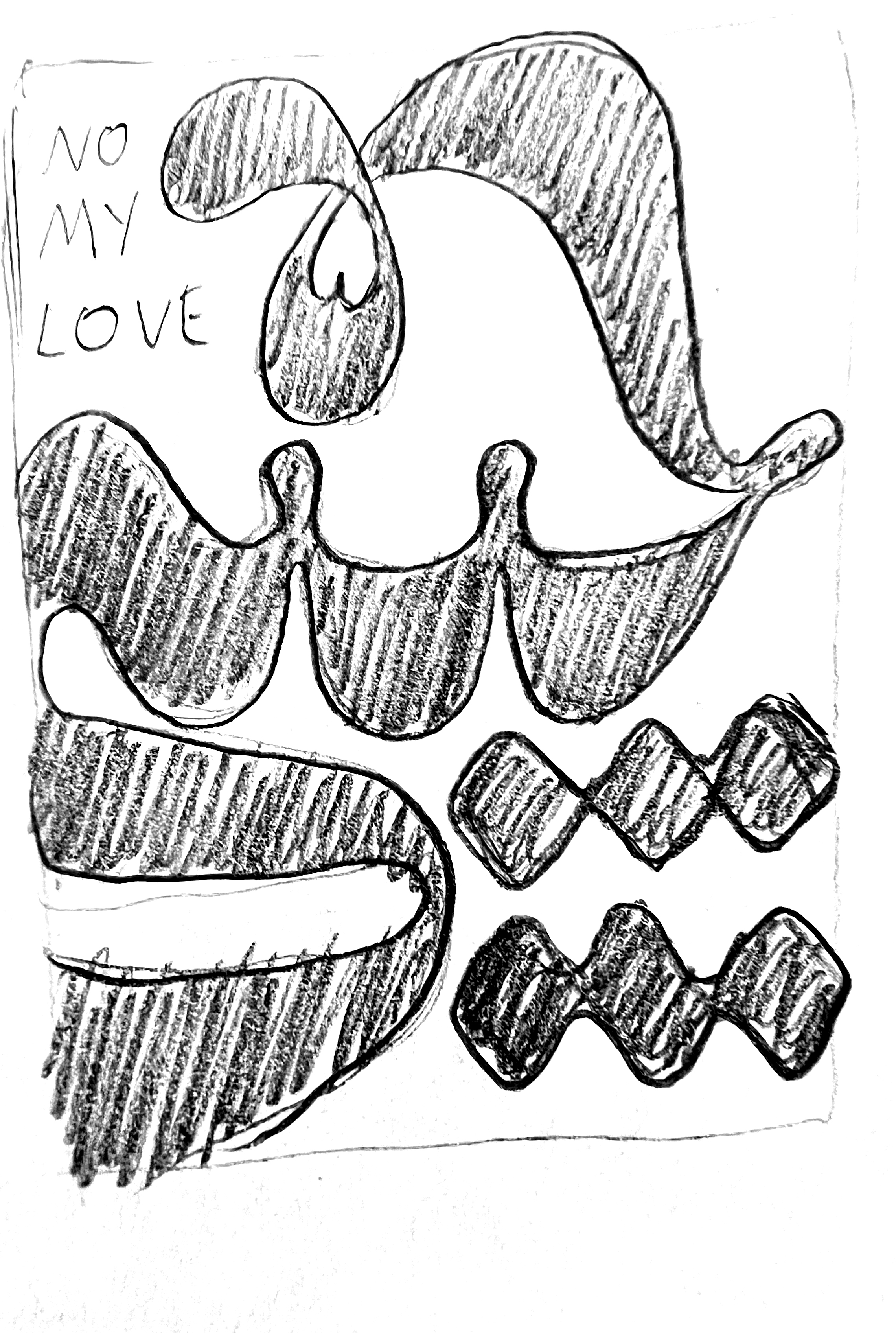
No My
Love
No My Love لا حبيبي
Pronounced “La Habibi” this is an abstract Arabic lettering piece that roughly translates to “No My Love”. This piece attempts a rounded Nastaliq script style.
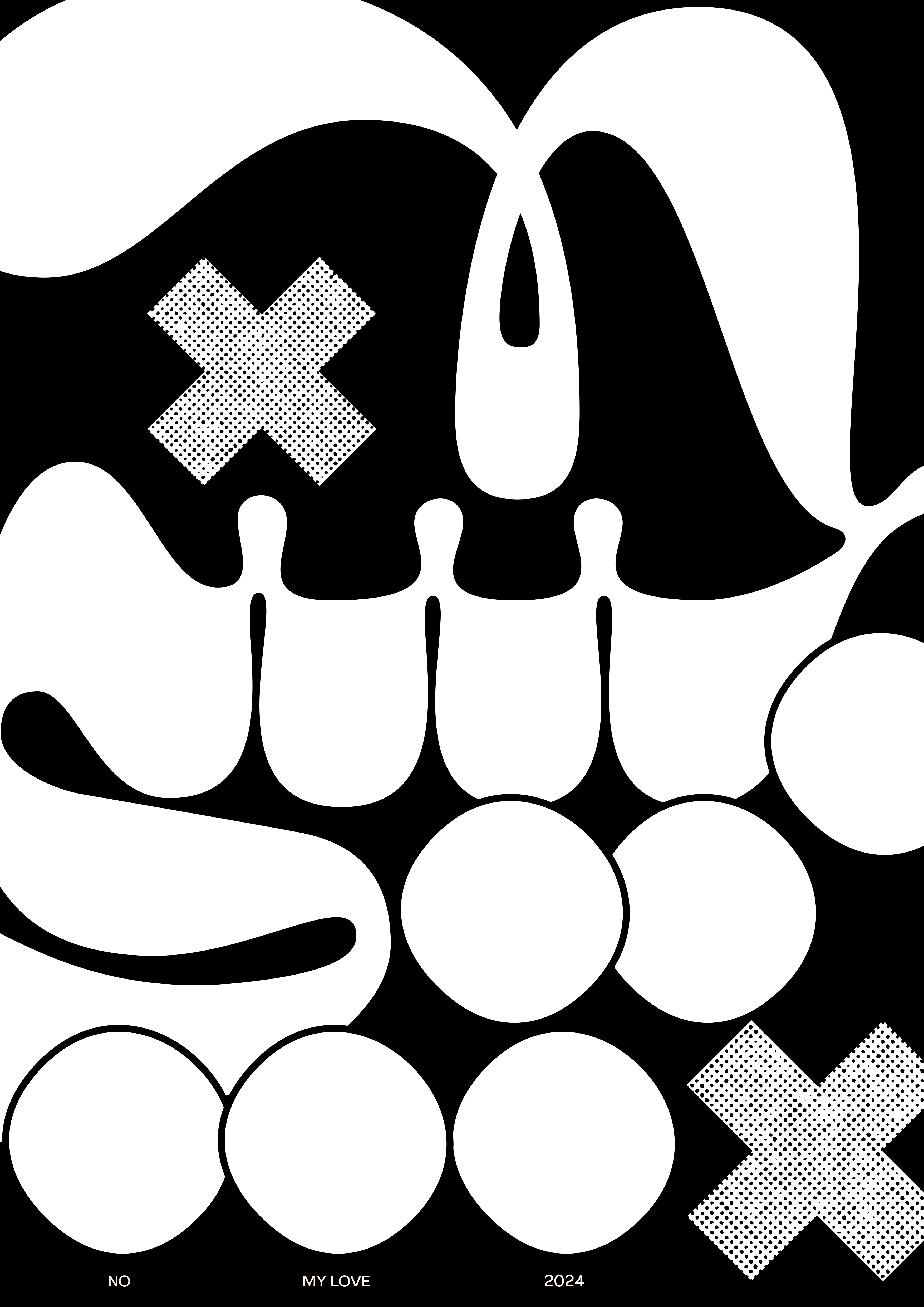
Brat Version
Process
Final Sketch
Sketches
Digitizing Process